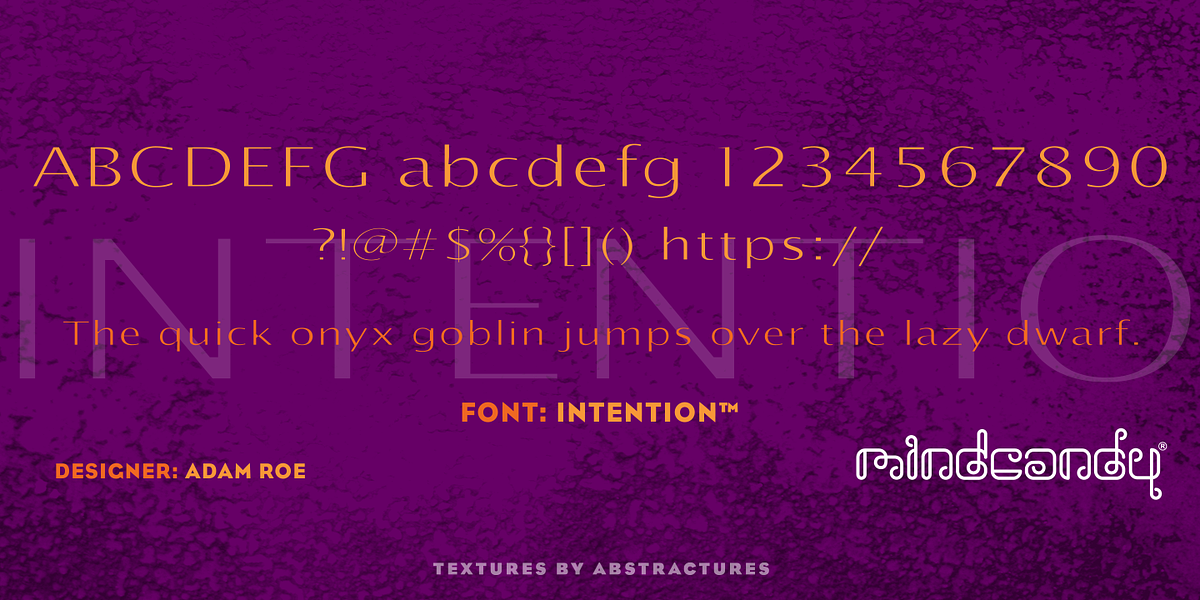
Intention™
This is a modern sans serif font designed for display purposes. Its geometric shapes and high contrast give it a clean, contemporary look suitable for headlines, branding, and web design.